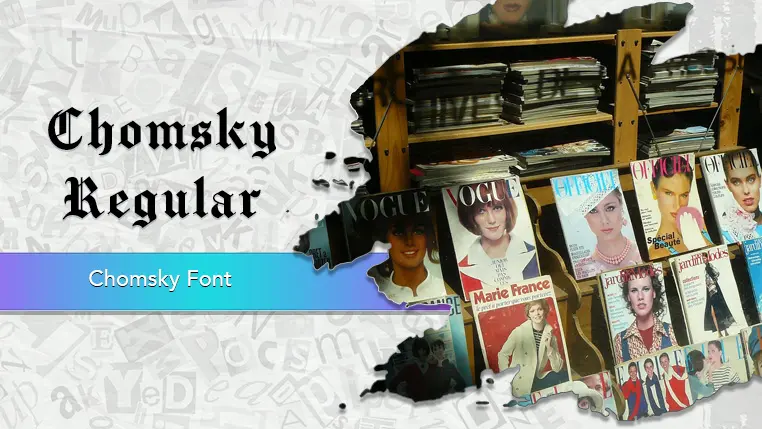
The Chomsky font family may be ideal for you if you enjoy working on an artistic design project. The lively, expressive look of this typeface, which was created by Fredrick Brennan, makes it ideal for Newspaper and Magazine Title. While not suitable for body text, Chomsky works well for short, impactful headlines and pull quotes in print and online publications. Its design makes it surprisingly legible at smaller sizes than many other blackletter fonts. The font's authoritative feel makes it a good choice for titles on certificates, diplomas, or other formal documents. and other light-hearted visual projects.
Regular are the one primary font styles of the Chomsky font family. You may build dynamic, visually appealing text layouts with the distinct flair that each style offers. With crisp, readable lines and a relaxed tone.